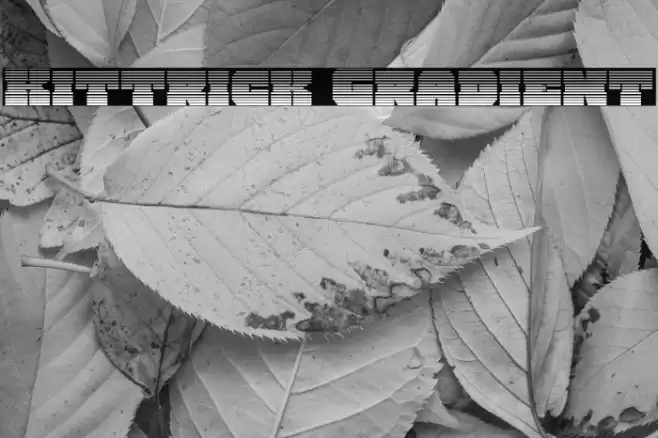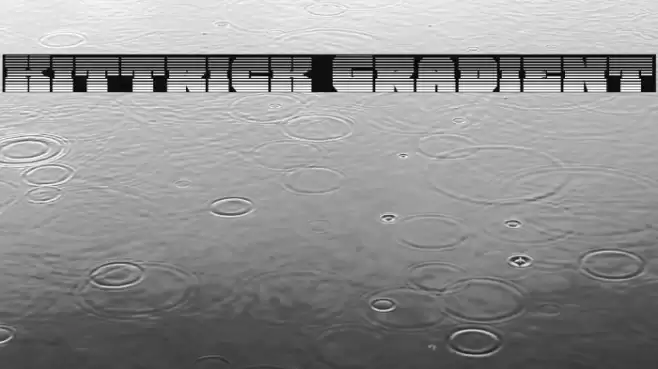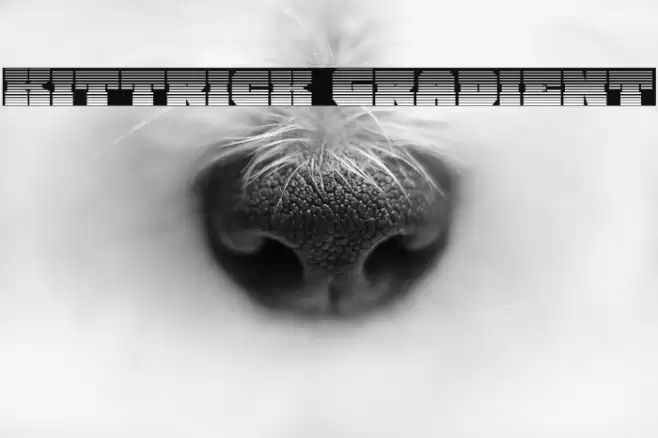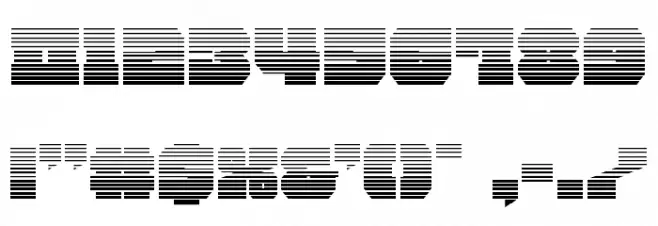
Kittrick Gradient Font
Kittrick Gradient Description
This font features a unique gradient effect created by horizontal lines of varying thickness, giving it a dynamic and modern appearance. The characters are bold and impactful, with a distinct striped pattern that adds depth and visual interest. The uppercase and lowercase letters maintain a consistent style, ensuring readability while still offering a decorative flair. The numbers and special characters are designed with the same attention to detail, making them suitable for a variety of applications. This font's striking design makes it ideal for projects that require a bold statement.
A bold, striped font with a gradient effect, perfect for modern and impactful designs from Uncategorized fonts.
- Proposed Projects: Ideal for posters, headlines, branding, and any design requiring a bold, modern touch.